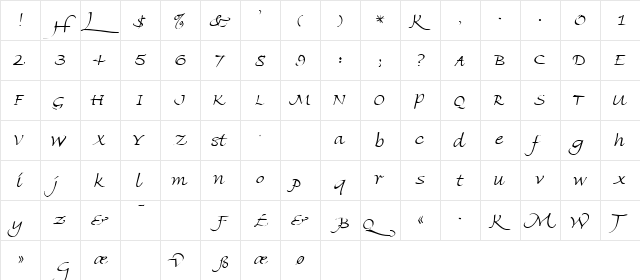
FRIHERRS Regular
Design Context for FRIHERRS Typeface
FRIHERRS takes a measured approach to typography — its balanced proportions and neutral character make it a reliable workhorse for both digital and print work.